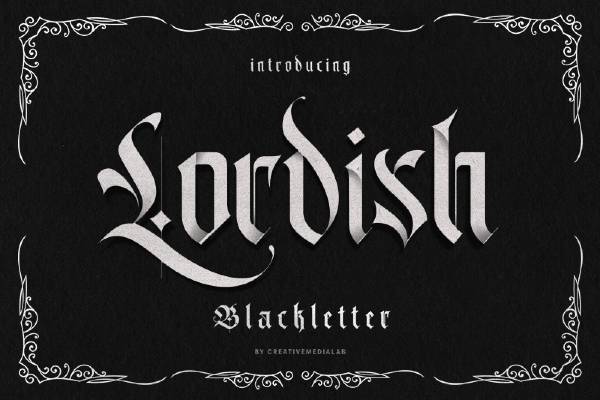
Dive into the dark, ornate elegance of our free online Blackletter font generator, your go-to tool for crafting mesmerizing graphics, images, and logos. Did you know that Blackletter is a typeface that answers to many names like Textura, Gothic minuscule, and Gothic script. Picture this: it was all the rage from the misty days of 1150s Europe until the 17th century. Heck, even the Vikings of typography - Denmark, Norway, and Sweden - held onto it till the 1870s. And let's not forget Germany, where this style survived until the 1940s. Now, if you're a design maestro hankering for a touch of medieval gravitas or gothic flair, our Blackletter logo and lettering generator is your knight in shining armor. Perfect for embellishing everything from magazine covers and social media blowouts to flyers and album art.